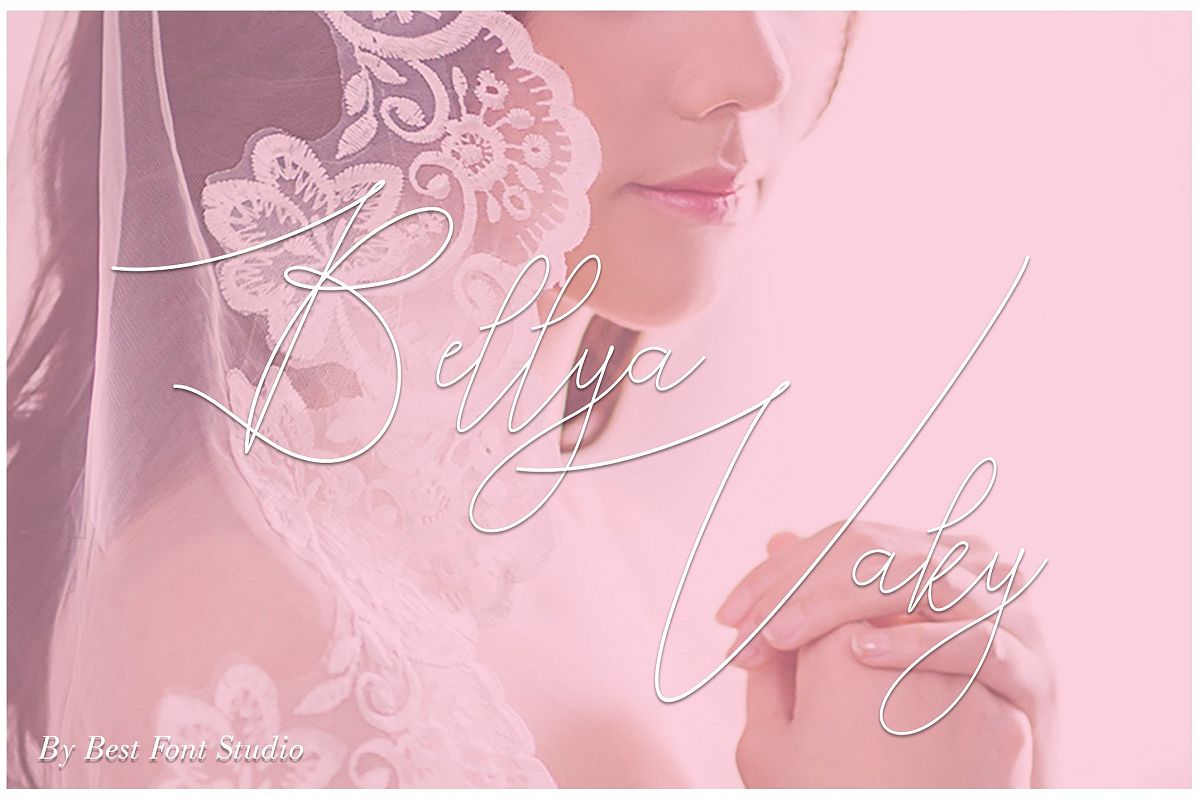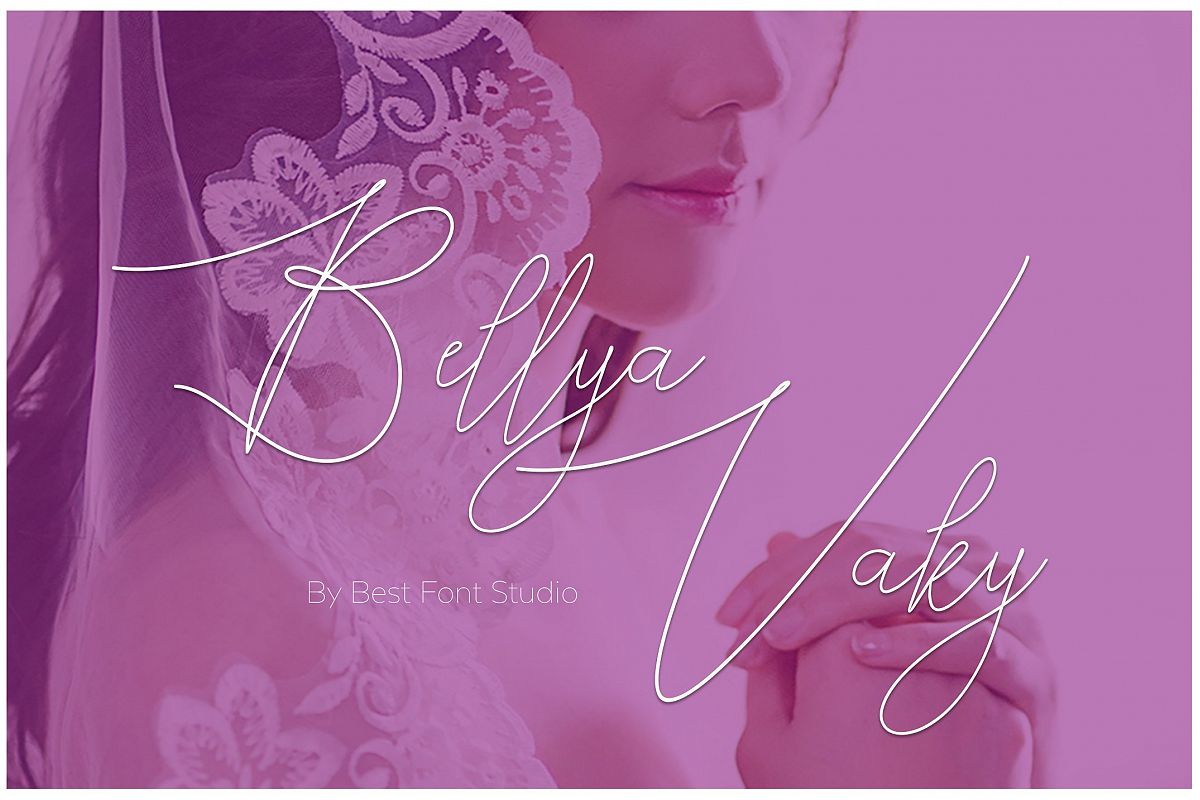
Bellya Vaky
Bellya Vaky Font Signature font with contemporary, sophisticated accents. It is perfect for branding, wedding invites and cards, and maybe for red wine label.Bellya Vaky Font includes full set of gorgeous uppercase and lowercase letters, numerals, a large range of punctuation and ligatures. All lowercase letters include beginning and ending swashes, that makes the font look fabulous.You will get:
By Best Font Studio